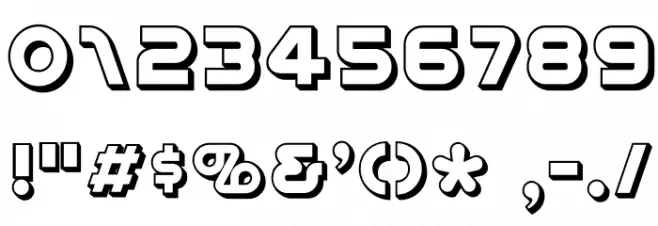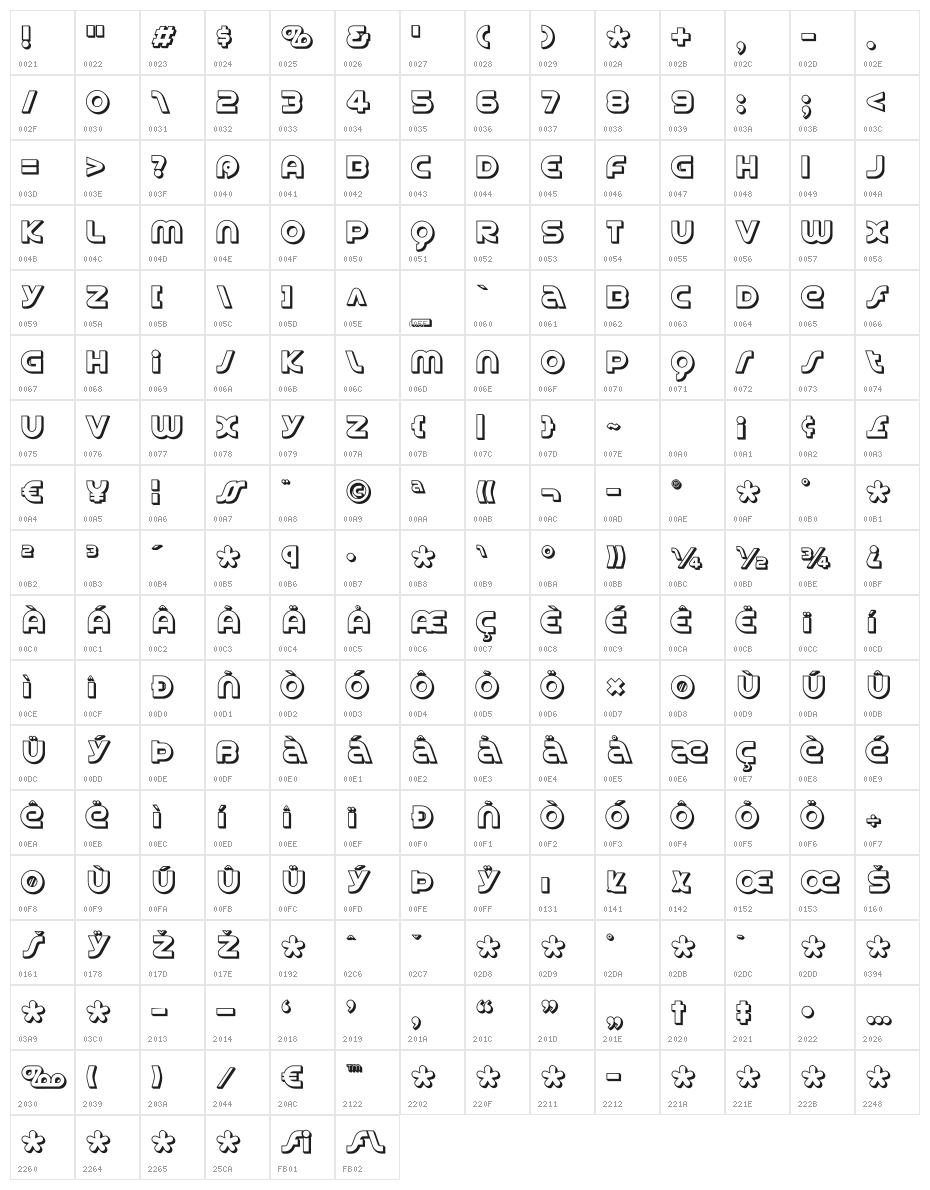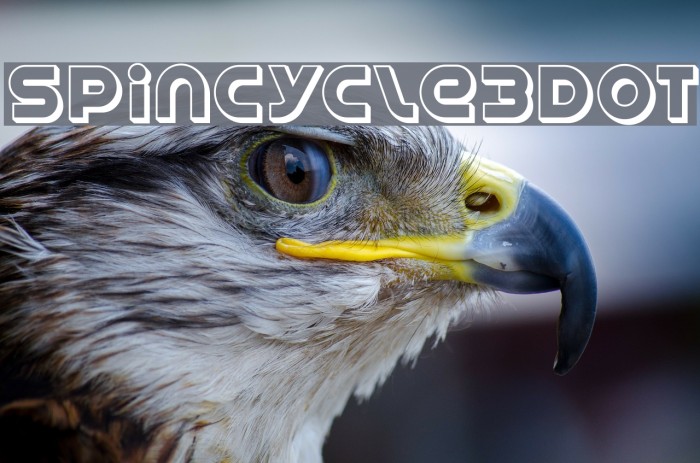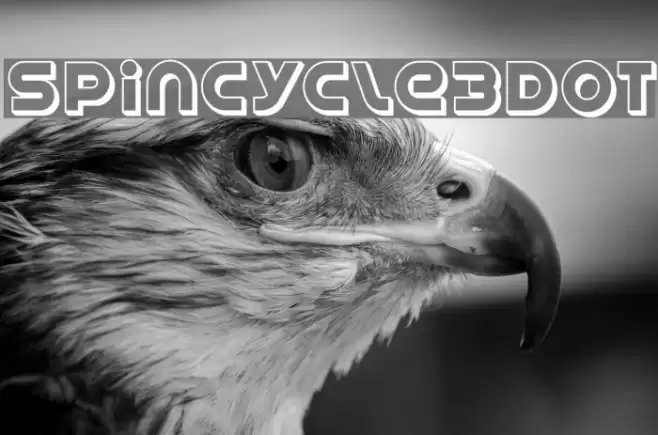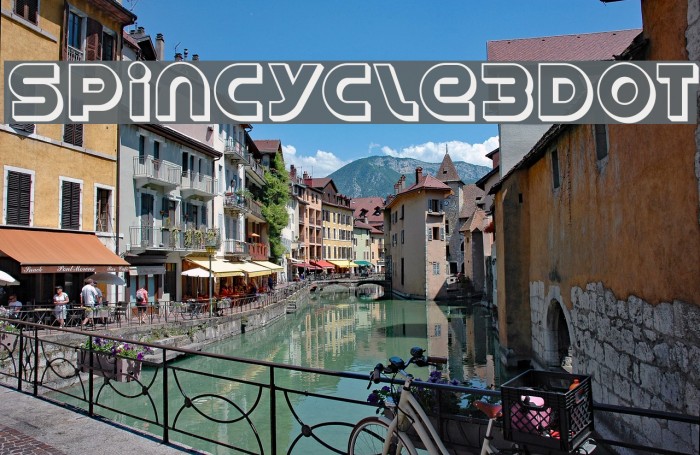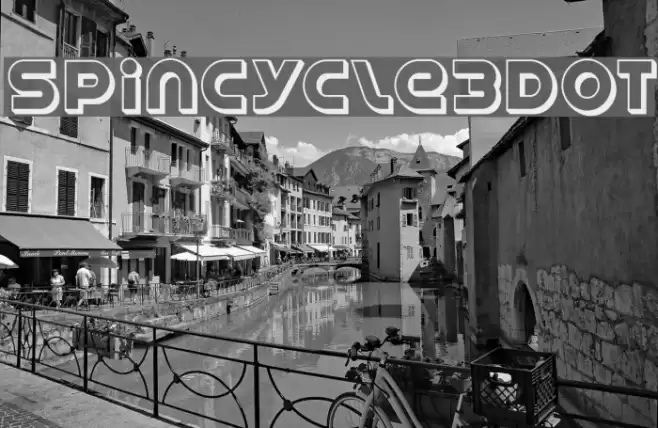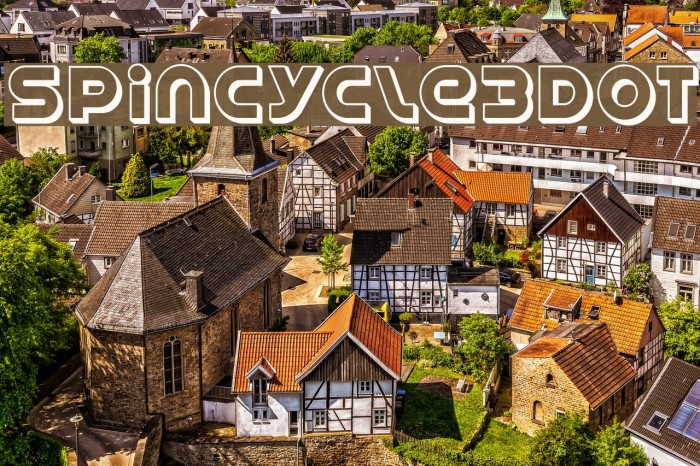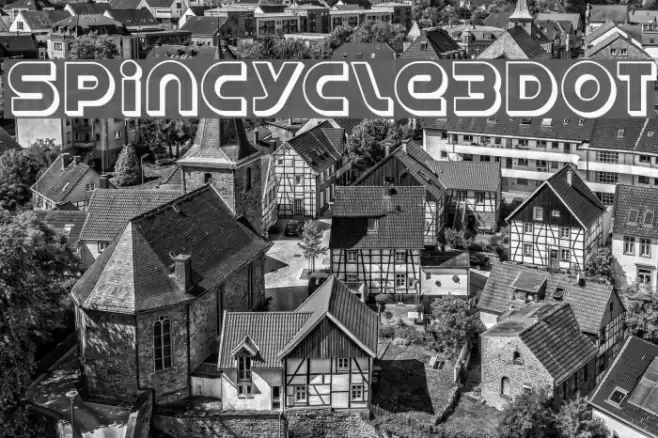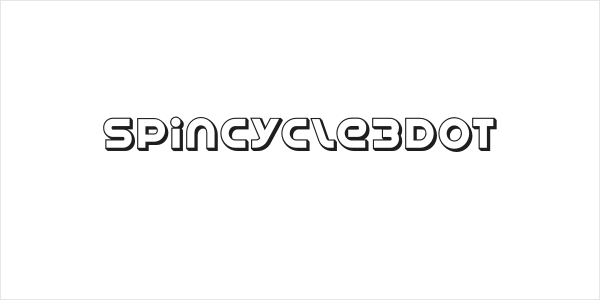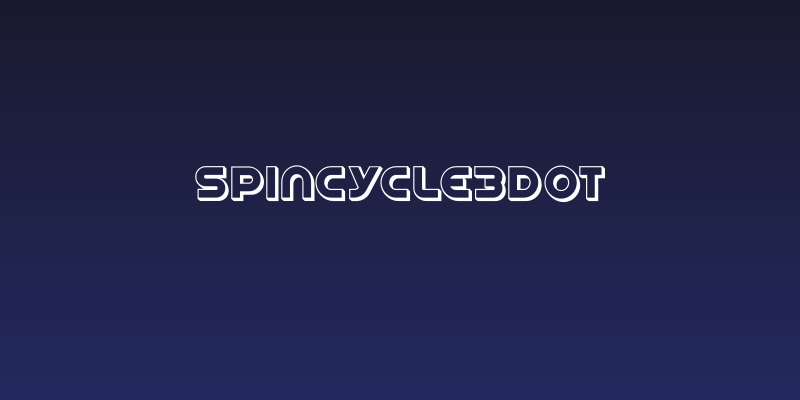
SpinCycle3DOT Font
SpinCycle3DOT Description
This font features a bold, modern design with a distinct outline style that gives it a three-dimensional appearance. The characters are rounded and geometric, with a consistent stroke width that adds to its contemporary feel. The uppercase and lowercase letters maintain a uniform height, creating a cohesive look. The numerals and special characters follow the same design principles, ensuring visual harmony across all elements. This font's unique style makes it stand out, while its readability remains intact due to the clear and clean lines.